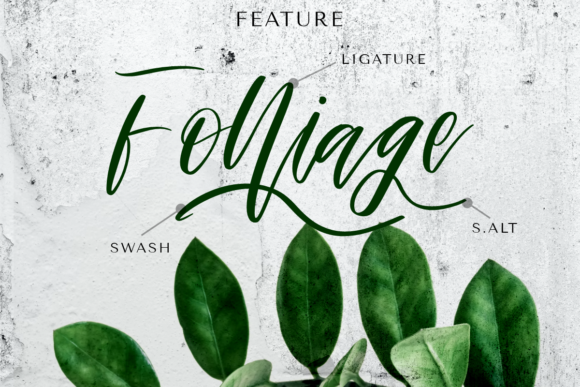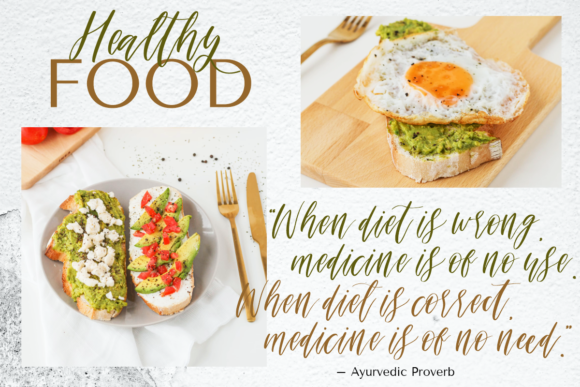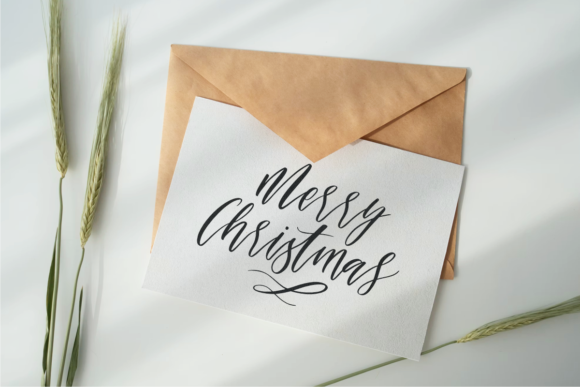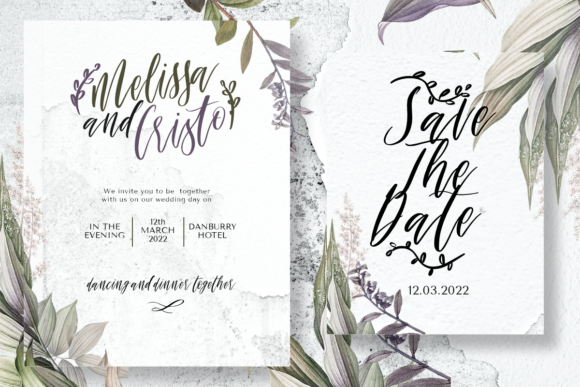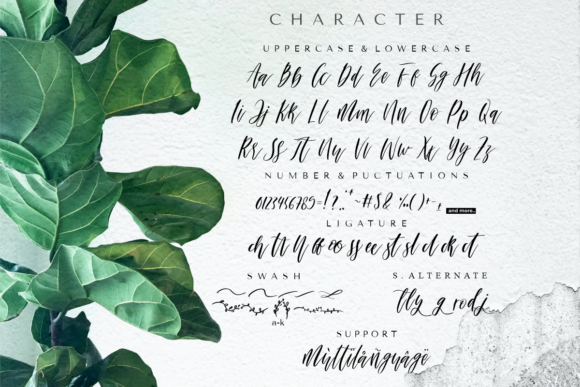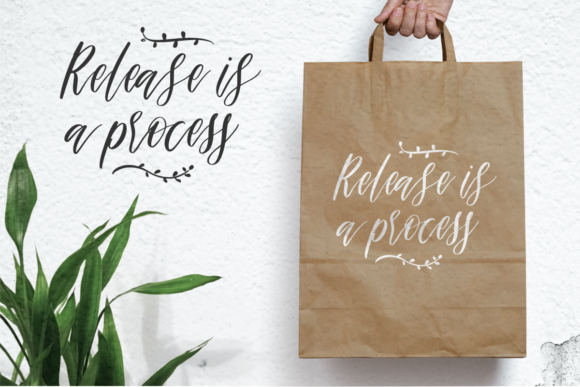
Discover the Timeless Elegance of Ashley & Mellisa Font
Have you ever found yourself lost in the world of typography, searching for the perfect font to elevate your design to the next level? For me, it’s a feeling I’m all too familiar with. I recall spending hours poring over font libraries, trying to find that one special font that would bring my creative vision to life. And then, it happened – I stumbled upon Ashley & Mellisa Font, a flowing script font that exudes a contemporary atmosphere and impeccable form, inspired by timeless classic calligraphy.
This beautiful font is not only aesthetically pleasing but also incredibly versatile, making it a valuable addition to any designer’s toolkit. With its PUA encoding, accessing all of the glyphs and swashes is a breeze, giving you the freedom to unleash your creativity and bring your designs to life in a way that’s both elegant and refined.
Ashley & Melissa Font Key Features
- Font Family: Ashley & Melissa is a unique font family designed to evoke a sense of elegance and sophistication. It comes in two styles: Ashley and Melissa.
- Unique Characteristics: The font features unique ligatures, swashes, and flourishes that add a touch of personality to any design. It also includes a range of ornaments and icons that can be used to enhance the visual appeal of a design.
Review: Ashley & Mellisa Font
I recently had the chance to work with the Ashley & Mellisa font, and I must say it’s a mixed bag. Let’s dive into what works well and what doesn’t.
Unique aesthetic: Ashley & Mellisa has a distinct, whimsical feel that sets it apart from more common fonts. It’s perfect for designers looking to add some personality to their projects.
Good legibility: Despite its quirky appearance, the font is surprisingly easy to read, making it suitable for body text and headlines alike.
Extensive language support: Ashley & Mellisa includes a wide range of languages, making it a great choice for global projects.
Limited flexibility: Ashley & Mellisa is a single-weight font, which can limit its use in complex designs or applications where multiple weights are necessary.
Not ideal for small text: The font’s unique style can make small text sizes difficult to read, so it’s best used for larger headlines and body text.
May not be suitable for formal designs: Ashley & Mellisa’s playful nature makes it better suited for casual or creative projects, rather than formal or corporate ones.
Overall, Ashley & Mellisa is a solid choice for designers looking to add some personality to their projects. While it has its limitations, the font’s unique aesthetic and good legibility make it a great option for the right project. Just be mindful of its limitations and use it wisely.
The Ashley & Mellisa Font is a versatile font that can be used for a variety of design projects. Some common use cases include:
- Home decor and furniture design
For optimal results, use the Ashley & Mellisa Font in conjunction with high-quality images and design elements.